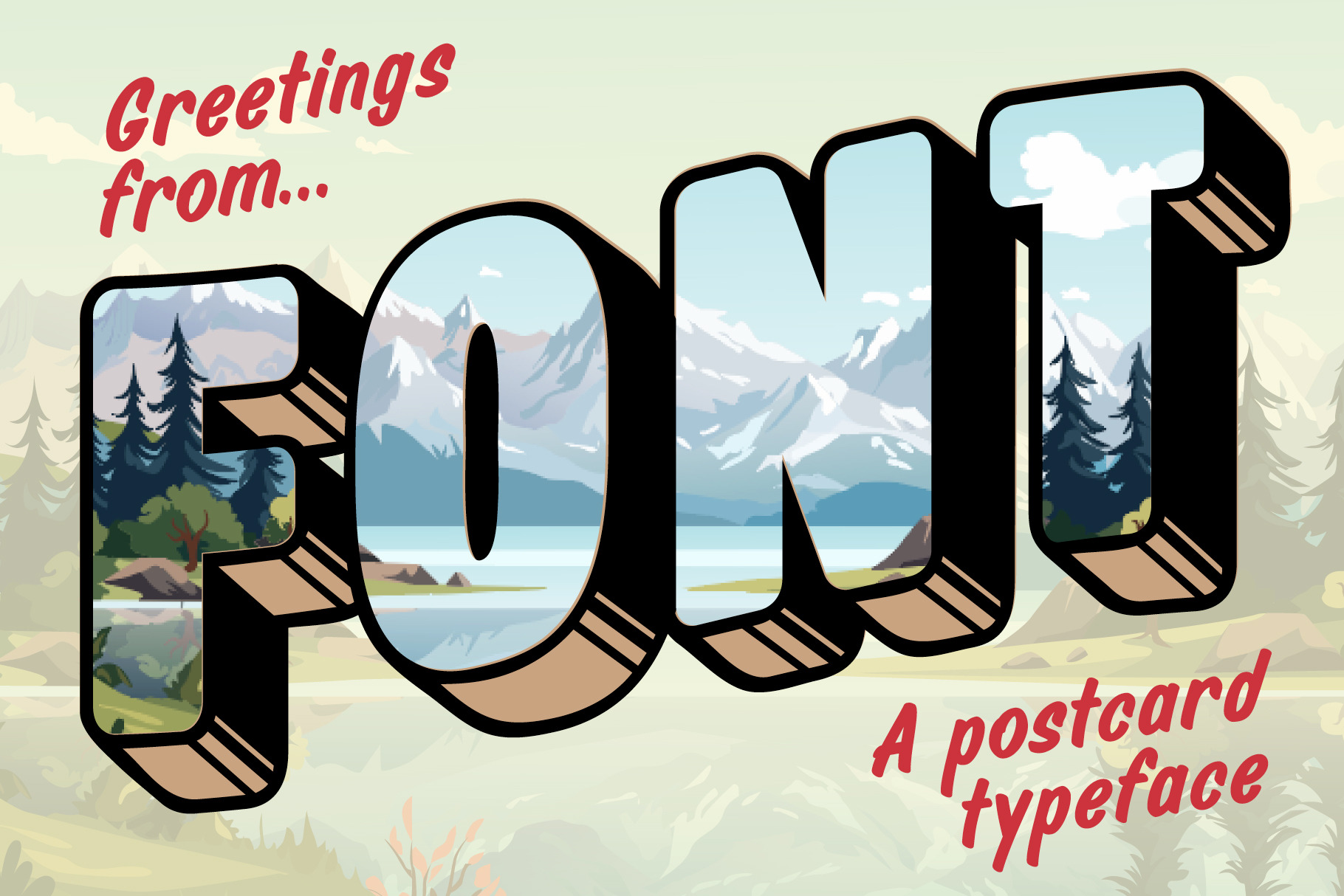
Greetings From Font
Greetings From is a bold, retro postcard typeface inspired by classic travel postcards from the mid century. Big dimensional letterforms, chunky outlines, and playful shadowing give this font instant vacation energy. Think souvenir shops, roadside attractions, and vintage travel posters. Designed to feel cheerful, nostalgic, and unmistakably bold, this font is perfect for destination graphics, travel branding, posters, postcards, stickers, apparel, packaging, and headline driven designs that need personality front and center.
The strong shapes and built in depth make it easy to create eye catching layouts, even with minimal styling. It pairs especially well with illustrated backgrounds, flat color fills, or simple scripts for supporting text.
If you want your designs to feel sunny, nostalgic, and instantly transportive, this postcard inspired typeface delivers classic travel charm with modern usability.